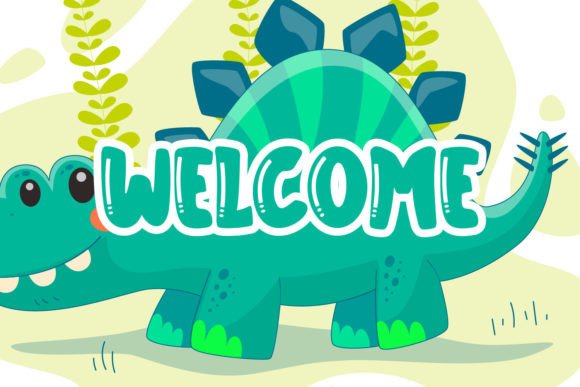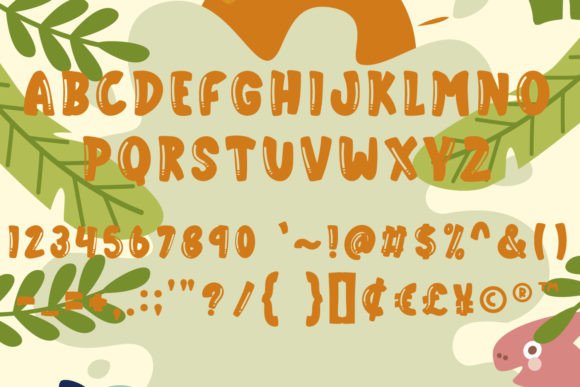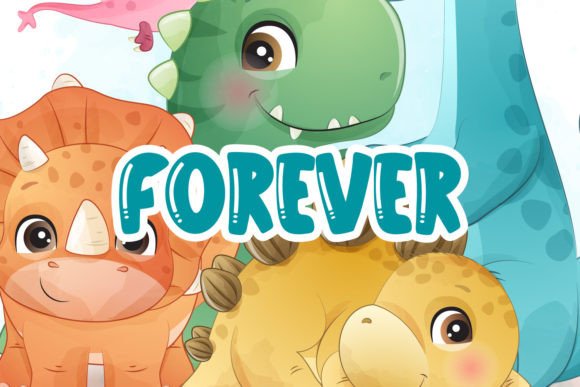
Dinosaur Font
Dinosaur is playfully and cute display font. Use this display font to add that special retro touch to any design idea you can think of! Masterfully designed to become a true favorite, this font has the potential to bring each of your creative ideas to the highest level!